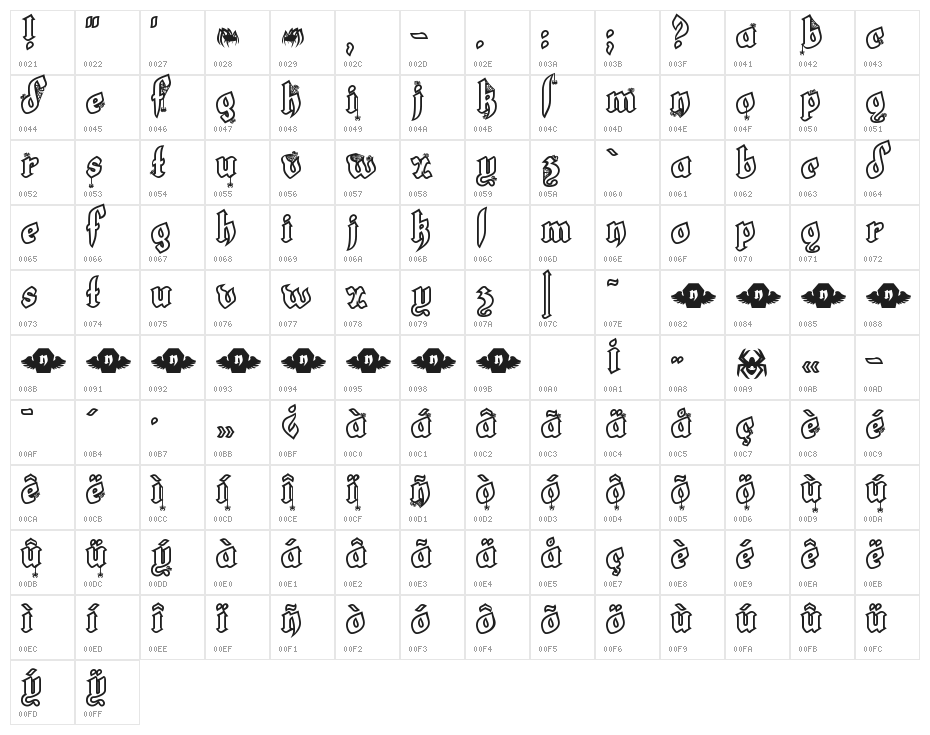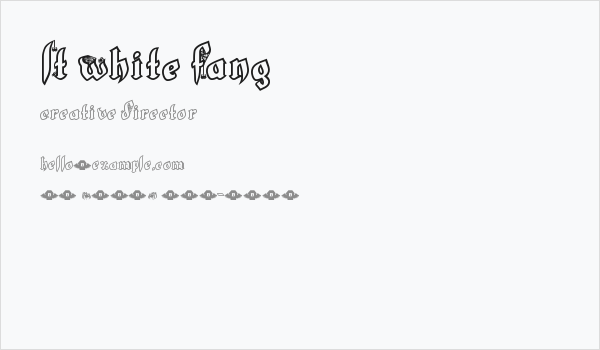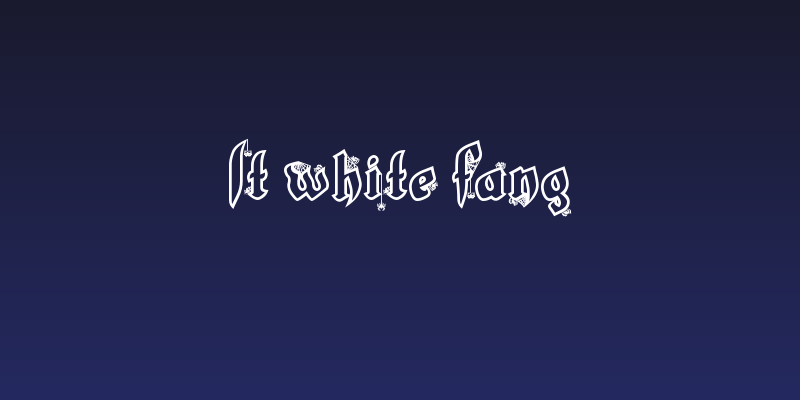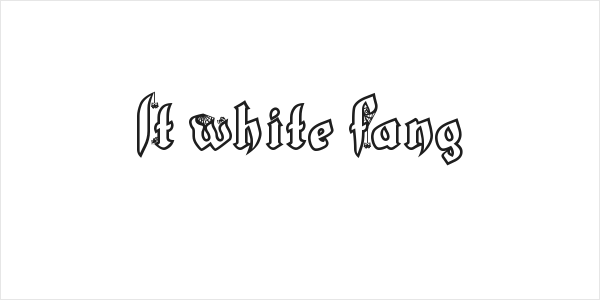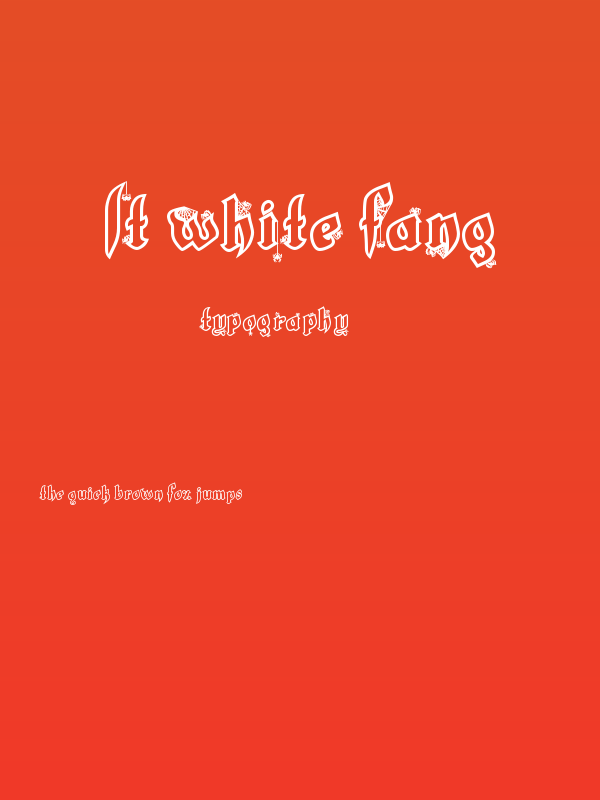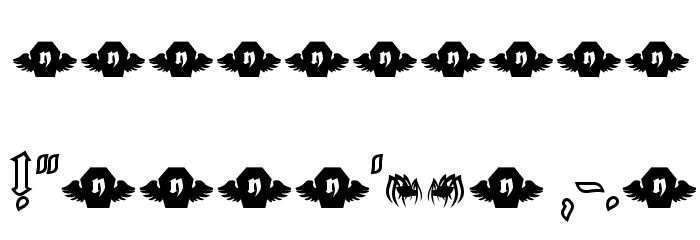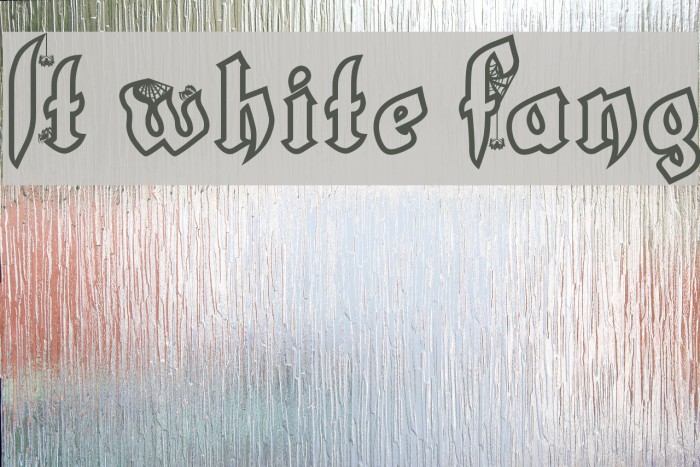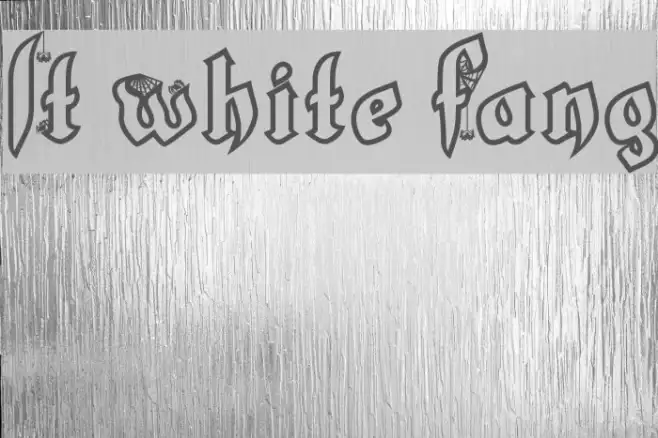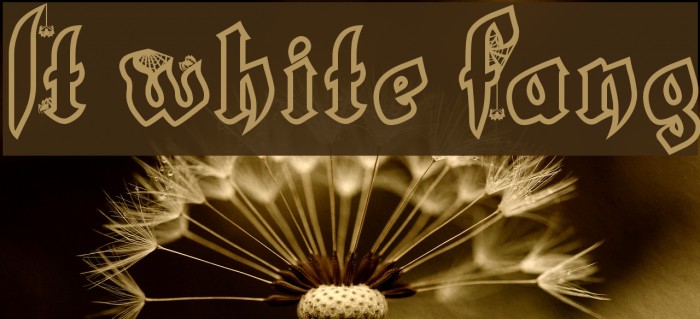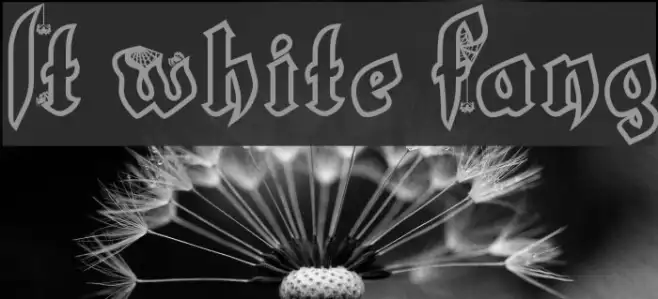
LT White Fang Font
LT White Fang Description
This font features a bold, gothic style with intricate details that evoke a sense of mystery and intrigue. The letters are adorned with decorative elements such as spider webs and bats, enhancing its spooky and dramatic appearance. The sharp, angular lines and high contrast between thick and thin strokes give it a striking presence. The font's unique embellishments make it ideal for Halloween-themed projects or any design that requires a touch of the macabre. Its decorative nature is balanced by a consistent structure, ensuring readability while maintaining its thematic flair.
| Overall Style | Gothic, Decorative |
| Use Case | Headlines, Logos, Themed Designs |
| Proposed Projects | Ideal for Halloween invitations, horror movie posters, themed event flyers, or gothic-style branding. |